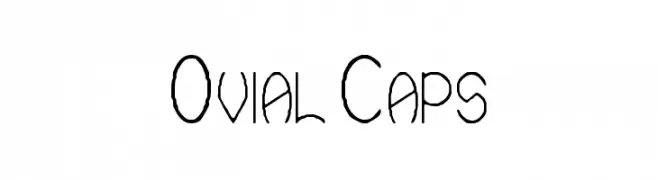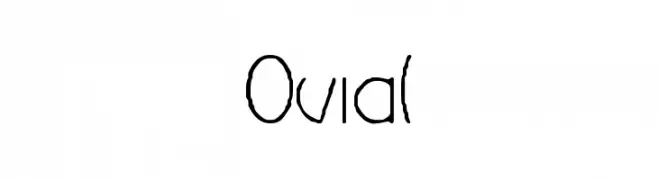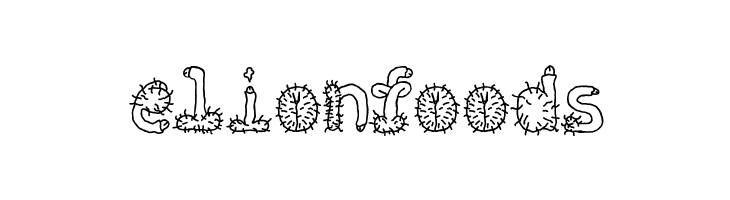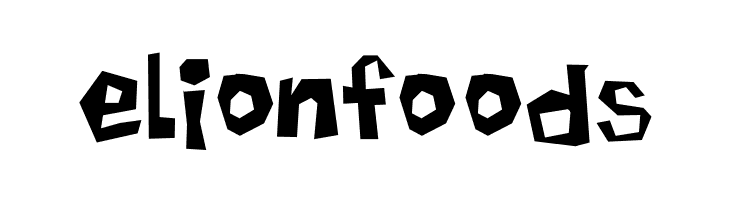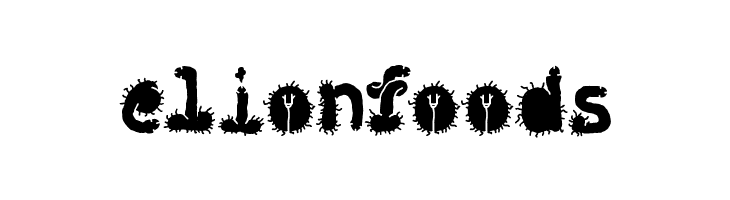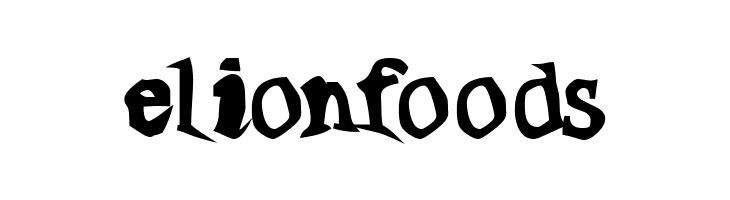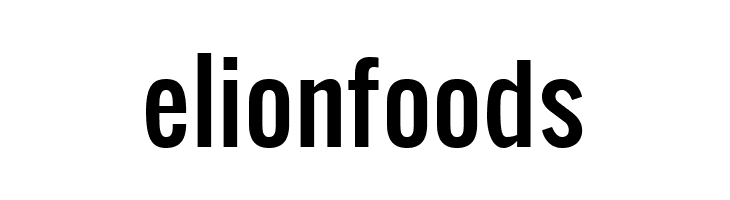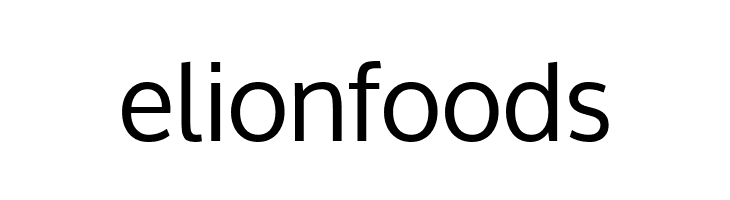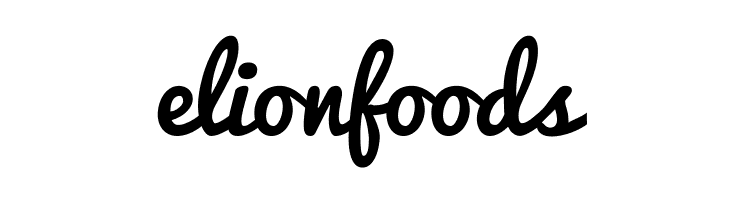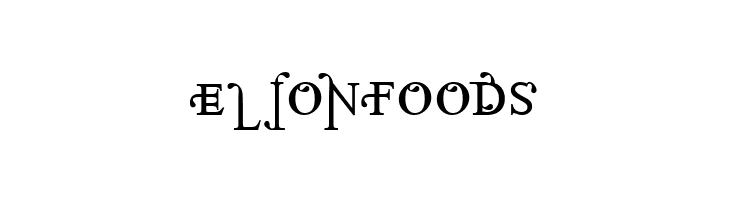
• Oswald
A modern, bold sans-serif font with clean lines and strong presence.
• Ovial
A playful, hand-drawn font with a whimsical and artistic style.
• Ovial Caps
A playful, hand-drawn font with elongated, irregular strokes.
• Oxygen
A modern, geometric sans-serif font with a clean and approachable design.
• Pacifico Regular
A playful, handwritten script font with smooth, interconnected characters.
• Parolm SmallCaps
A decorative and ornate font with intricate serifs and artistic details.
• Penis Typography Black
A bold, playful font with an organic, splattered texture.
• Penis Typography Regular
A playful, spiky font with a humorous and unique design.
• Poltergeist Thick
A bold, jagged font with a hand-drawn, chaotic style.
• Praise 'Bob'
A bold, playful font with an irregular, jagged design.